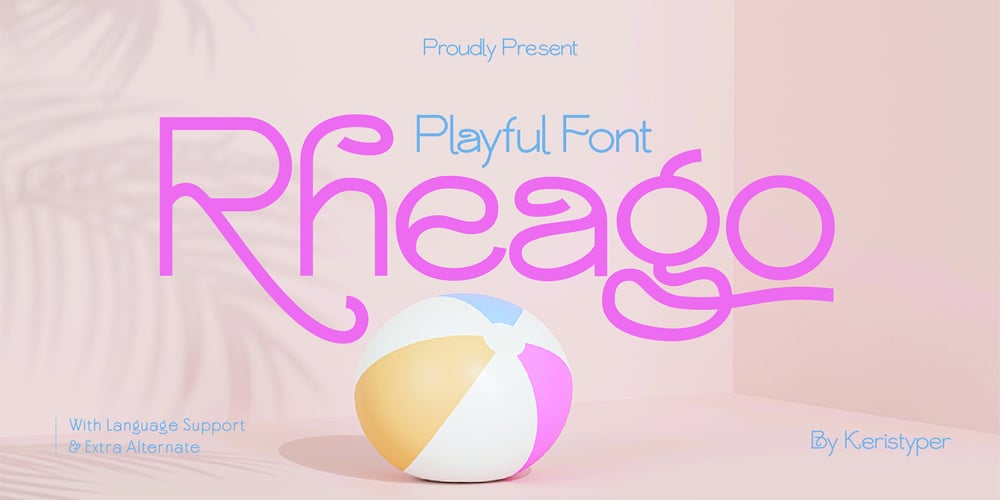
Rheago Font Family was designed by Tezar Tantular and published by Keristyper Studio. Rheago contains 1 styles and family package options. say hello to Rheago, a sweet and cute typeface. This font is good for logo design, Social media, Movie Titles, Books Titles, short text even long text letters, and good for your secondary text font with sans or serif.Featured: Standard Uppercase & Lowercase Numeral & Punctuation Multilingual : ä ö ü Ä Ö Ü ß ¿ ¡ Alternate & Ligature PUA encoded We recommend programs that support the OpenType feature and the Glyphs panel such as Adobe applications or Corel Draw. so you can use all the variations of the glyphs.Hope you enjoy our fonts!